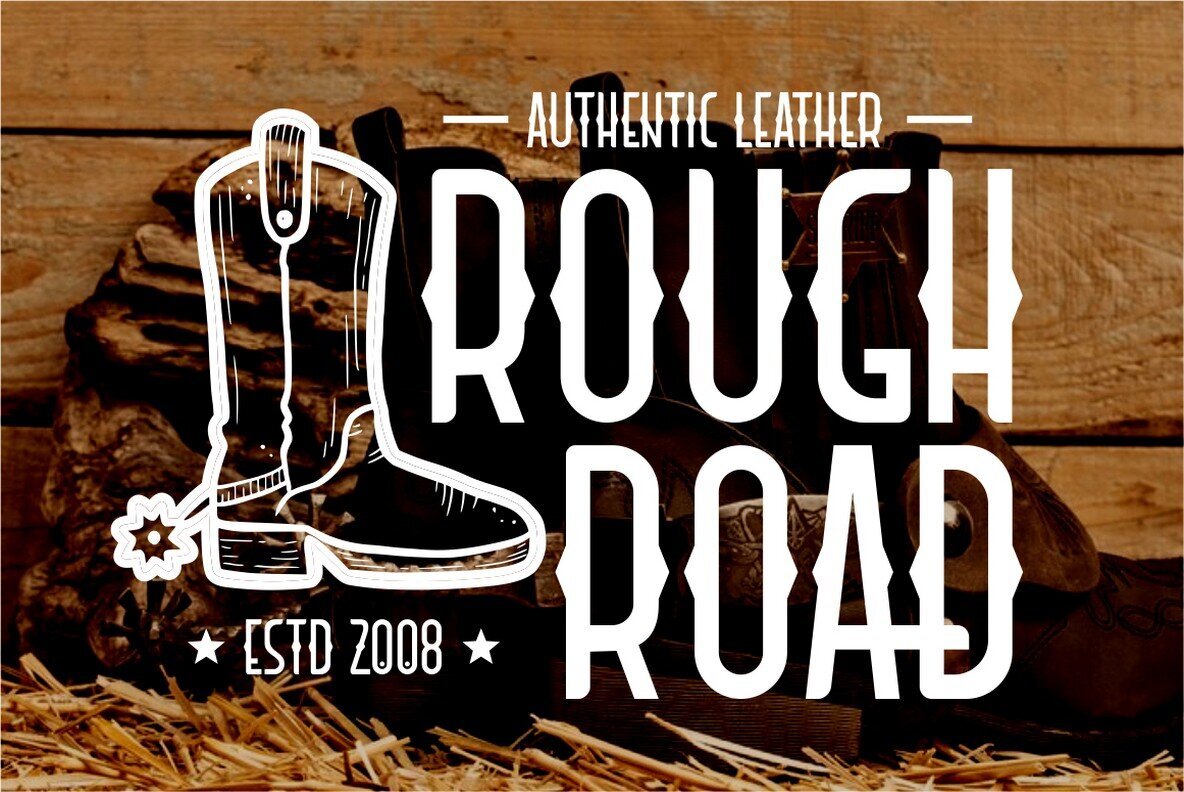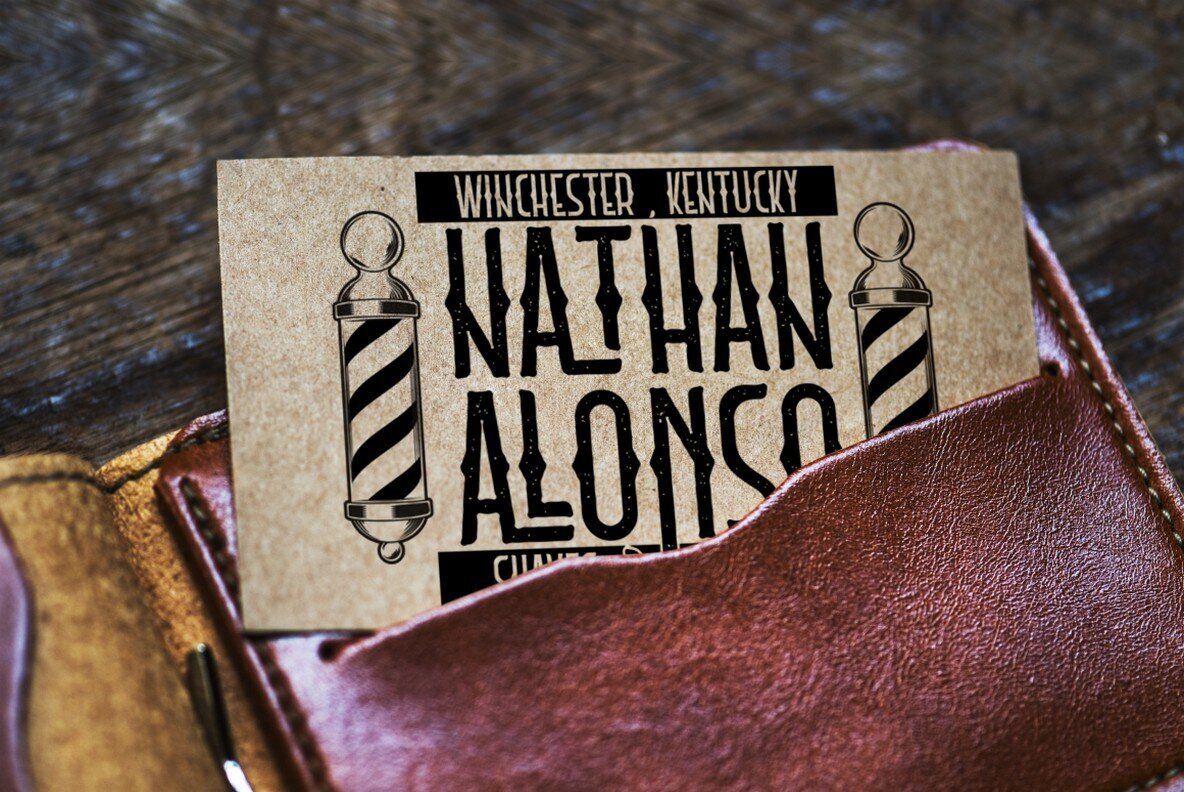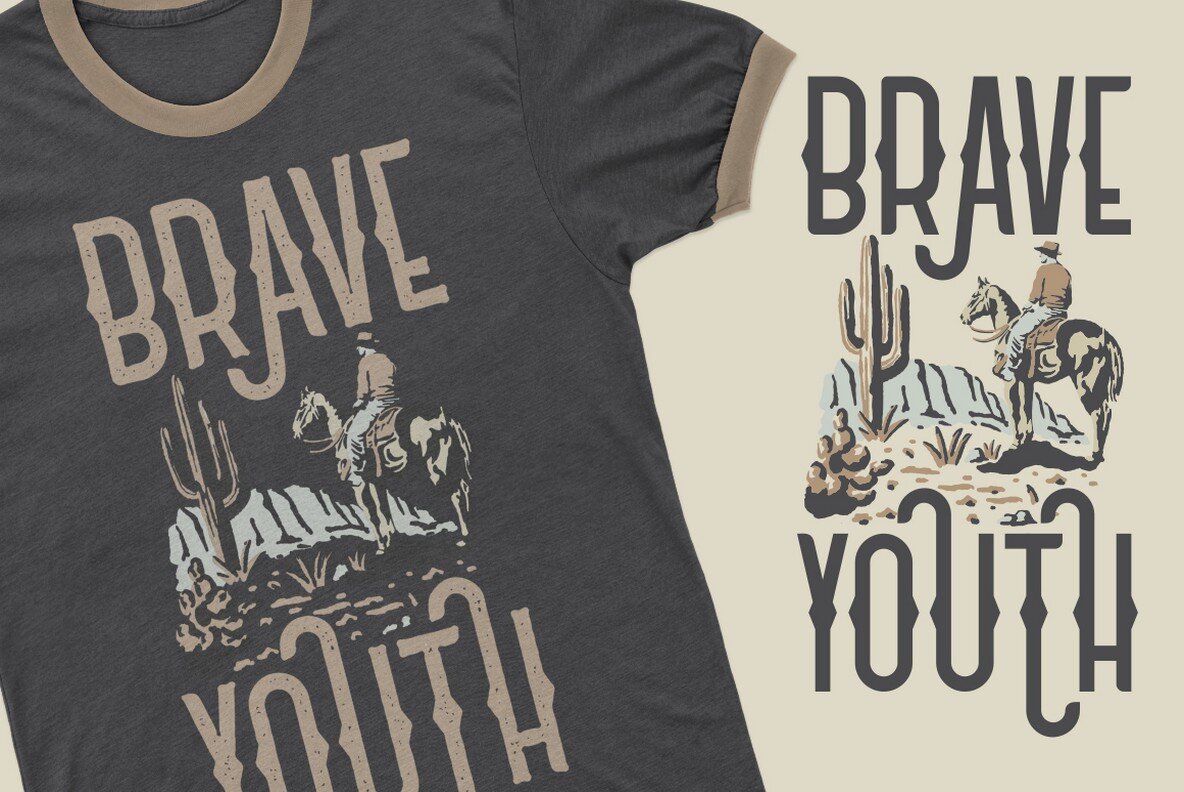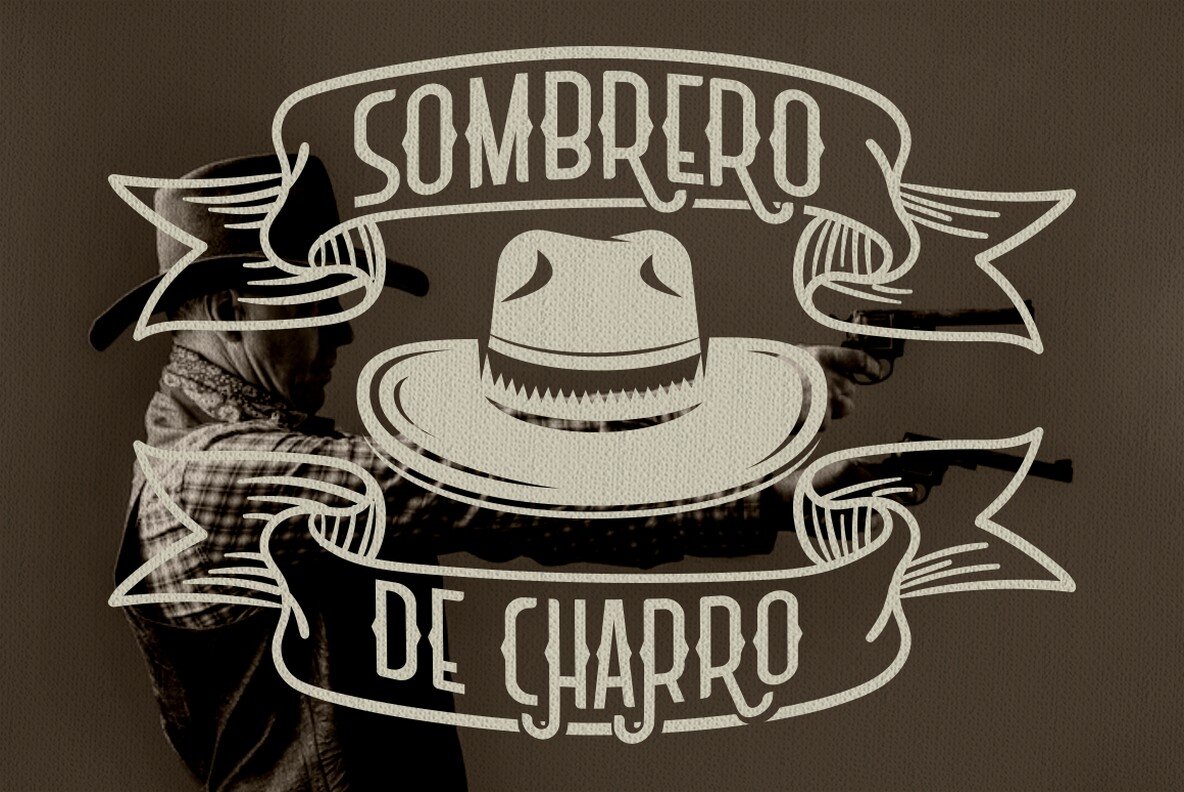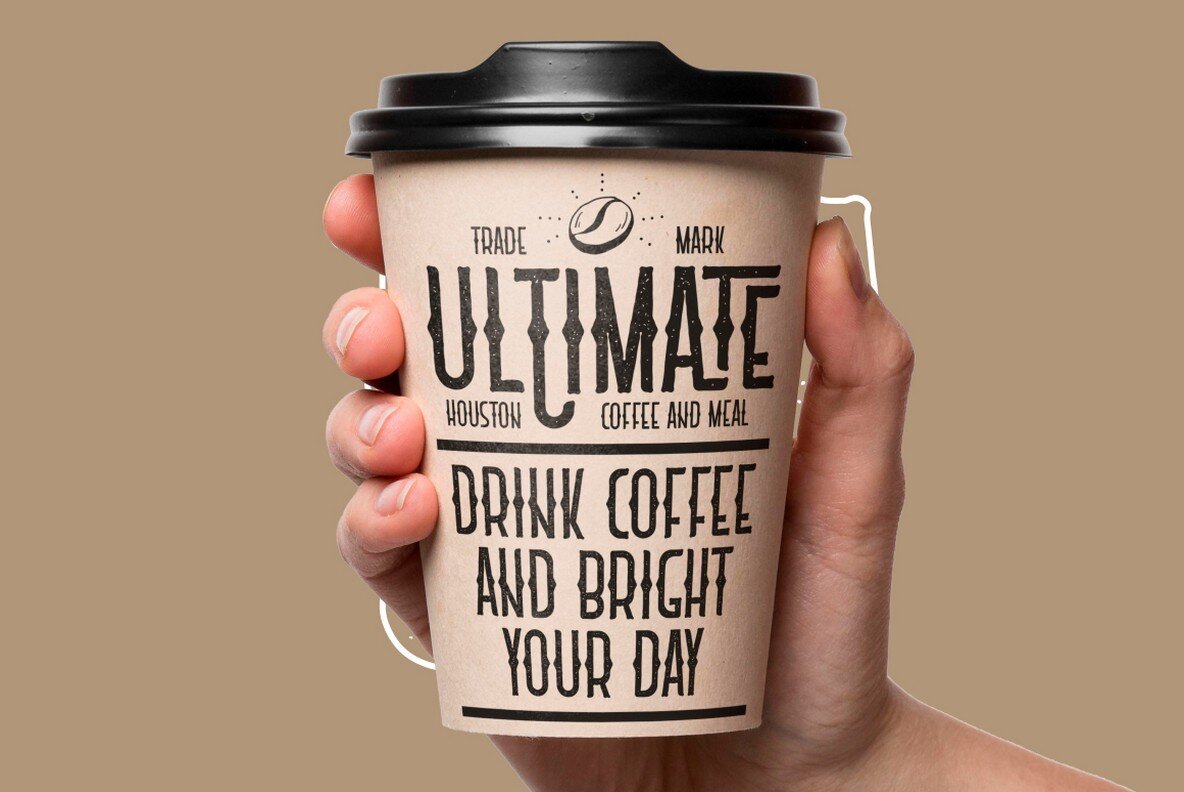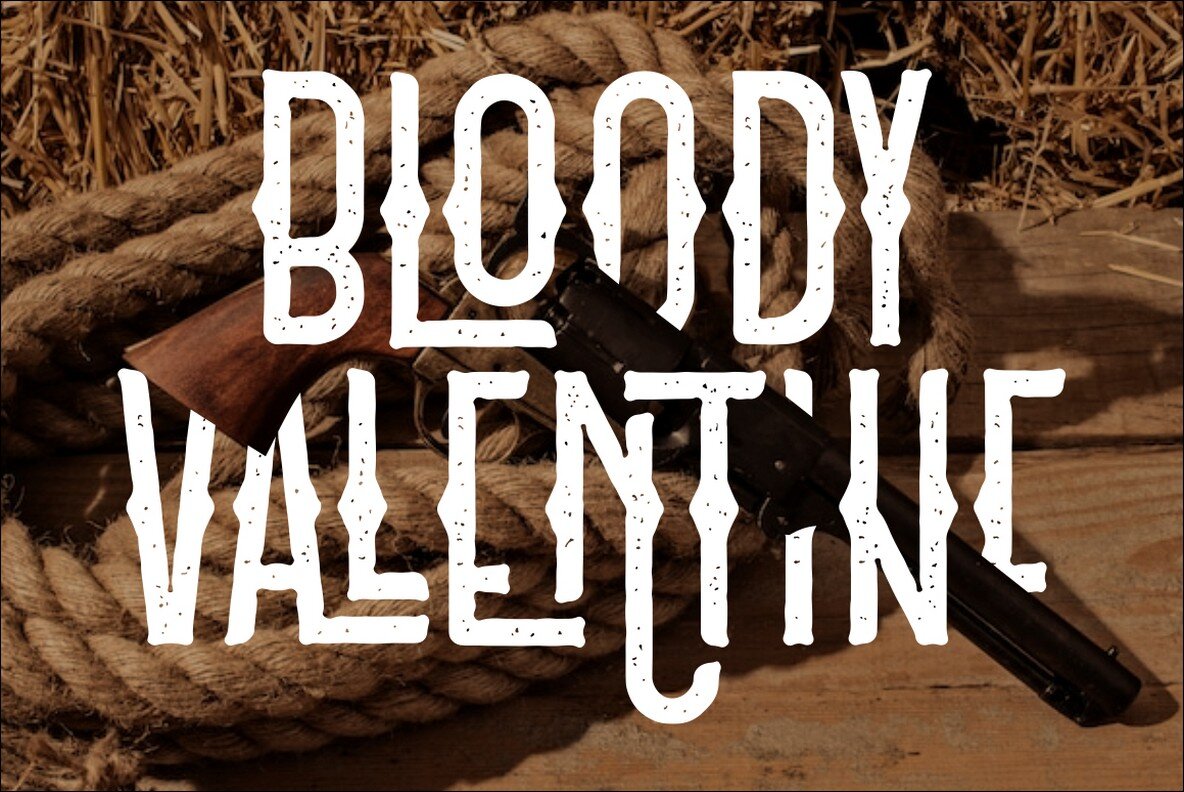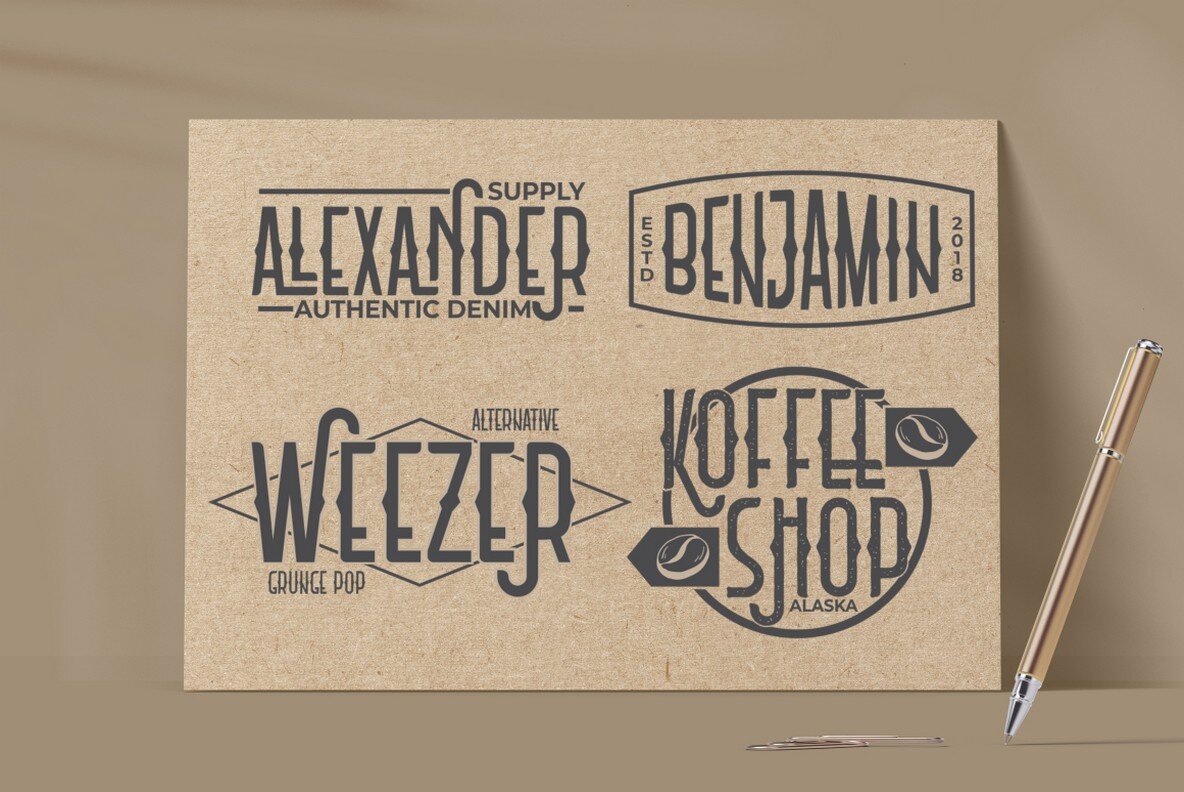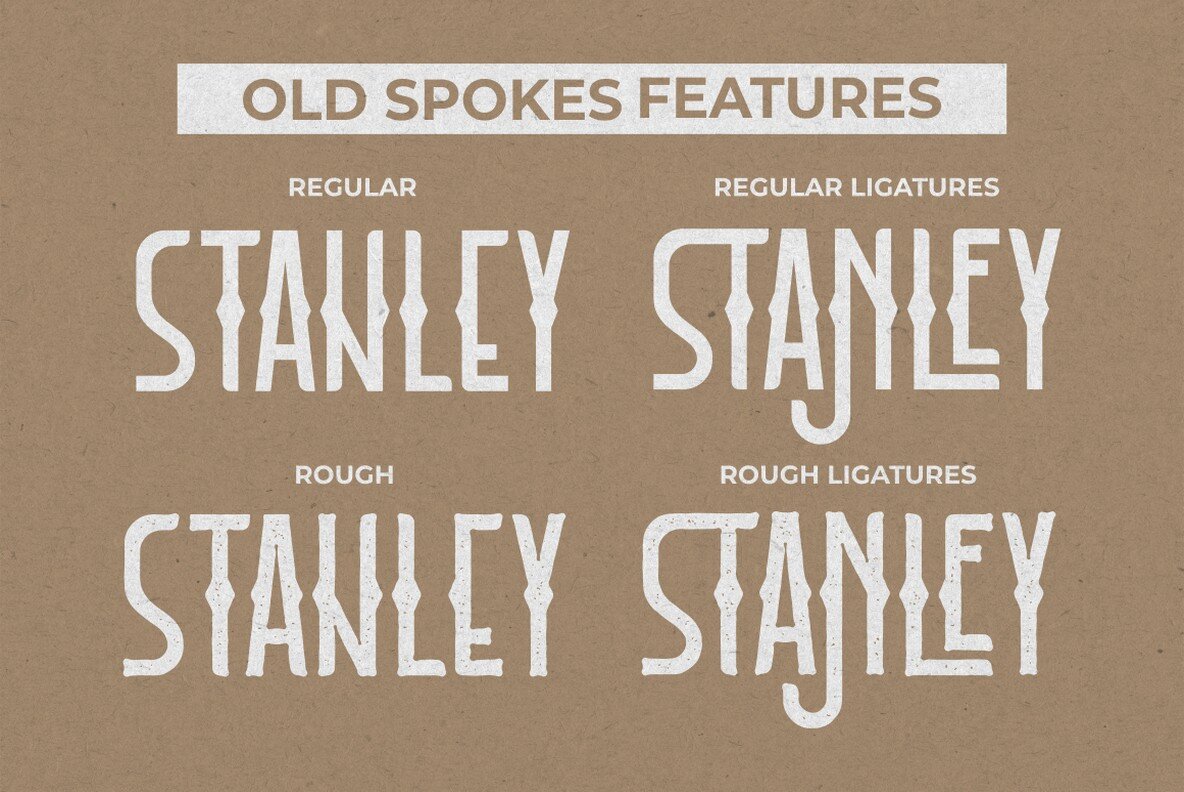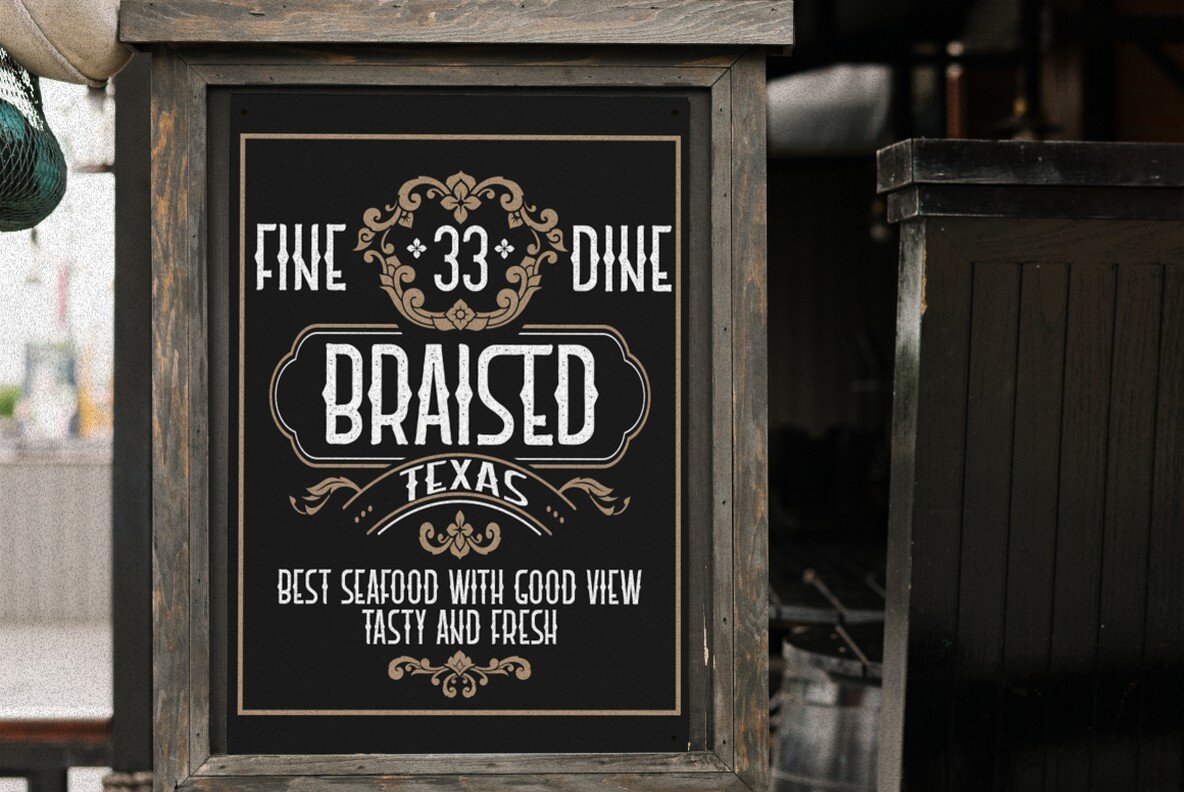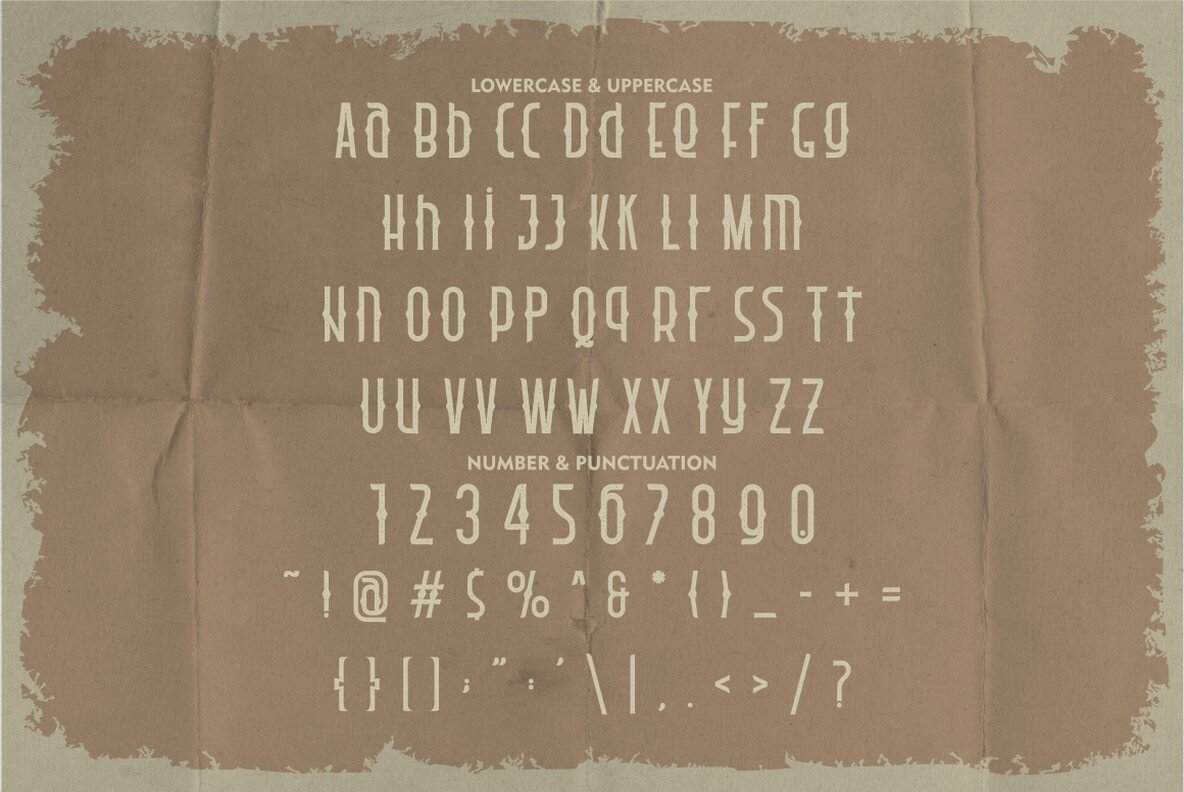
Old Spokes Font
Old Spokes brings the charm of vintage poster displays to modern design applications, offering a distinct blend of classic and trendy aesthetics. Its unique character is enhanced by a variety of ligature options, making it a standout choice for projects needing a retro flair. Whether for album covers, posters, labels, or even apparel and signage, Old Spokes suits multiple display purposes with its nuanced styling.Old Spokes: A Unique Vintage Display Typeface